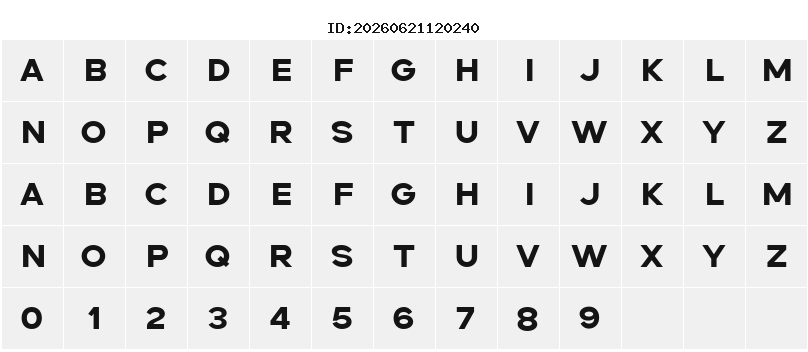
UNCAGE SemBd Preview
• Font Name: UNCAGE SemBd
• Full Font Name: UNCAGE SemiBold
• PostScript Name: UNCAGE-SemiBold
• Designer: Vladimir Klenov
About UNCAGE SemBd.ttf
UNCAGE SemBd.ttf is a modern, elegant sans-serif font designed for ultimate readability and visual harmony. Perfect for branding, headlines, web design, and print materials.